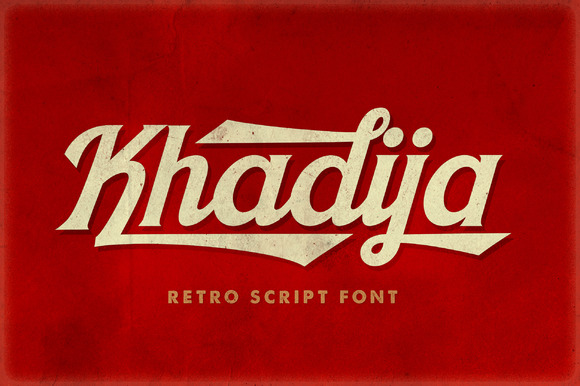
Khadija Spurs Font: A Bold and Powerful Script Font with a Retro Touch
In the world of typography, fonts play a crucial role in conveying the tone and personality of a brand or design. With the numerous font options available, finding the perfect one that stands out from the crowd can be a daunting task. However, if you’re looking for a bold, strong, and powerful script font with a touch of retro feeling, look no further than Khadija Spurs Font. In this article, we’ll dive into the features and benefits of Khadija Spurs Font and explore why it’s an excellent choice for your design needs.
What is Khadija Spurs Font?
Khadija Spurs Font is a stunning script font that exudes confidence and elegance. Its bold and strong strokes make it perfect for headlines, titles, and any design that requires a statement piece. The font’s unique blend of modern and retro elements gives it a distinctive look that sets it apart from other script fonts.
Key Features of Khadija Spurs Font
- Bold and Strong Strokes: Khadija Spurs Font features bold and strong strokes that make it perfect for designs that require a statement piece.
- Retro Touch: The font’s retro elements give it a unique and distinctive look that sets it apart from other script fonts.
- Modern Twist: Despite its retro touch, Khadija Spurs Font has a modern twist that makes it suitable for contemporary designs.
- Script Font: Khadija Spurs Font is a script font, making it perfect for designs that require a touch of elegance and sophistication.
- Multilingual Support: The font supports multiple languages, making it a great choice for global brands and designs.
Khadija Script: A Bold, Strong, and Powerful Script Font
Khadija Script is a bold, strong, and powerful script font that shares similarities with Khadija Spurs Font. It’s a stunning font that features bold strokes, elegant curves, and a touch of retro feeling. Khadija Script is perfect for designs that require a statement piece, such as logos, headlines, and titles.
Benefits of Using Khadija Spurs Font
- Unique and Distinctive Look: Khadija Spurs Font has a unique and distinctive look that sets it apart from other script fonts.
- Elegance and Sophistication: The font’s script style gives it an air of elegance and sophistication, making it perfect for high-end brands and designs.
- Versatility: Khadija Spurs Font is versatile and can be used for a wide range of designs, from logos and headlines to titles and body text.
- Easy to Read: Despite its bold strokes, Khadija Spurs Font is easy to read, making it perfect for designs that require a clear and concise message.
How to Use Khadija Spurs Font
- Use it for Headlines and Titles: Khadija Spurs Font is perfect for headlines and titles, where its bold strokes and elegant curves can make a statement.
In conclusion, Khadija Spurs Font is a bold, strong, and powerful script font with a touch of retro feeling. Its unique and distinctive look, elegance, and sophistication make it perfect for designs that require a statement piece. With its versatility, easy readability, and multilingual support, Khadija Spurs Font is an excellent choice for designers and brands looking to make a lasting impression.
- What is Khadija Spurs Font? Khadija Spurs Font is a bold, strong, and powerful script font with a touch of retro feeling.
- What is Khadija Script? Khadija Script is a bold, strong, and powerful script font that shares similarities with Khadija Spurs Font.
- Is Khadija Spurs Font easy to read? Yes, Khadija Spurs Font is easy to read, making it perfect for designs that require a clear and concise message.